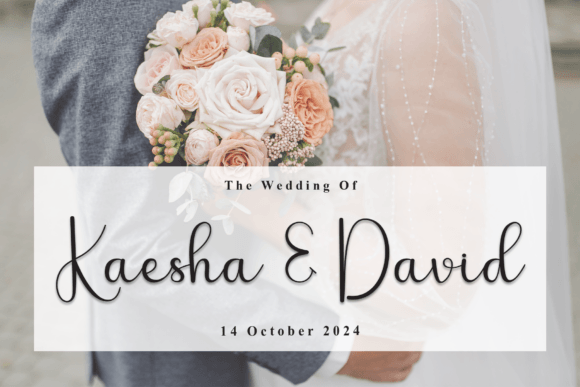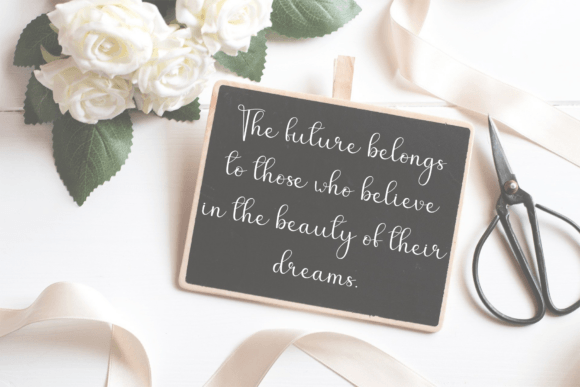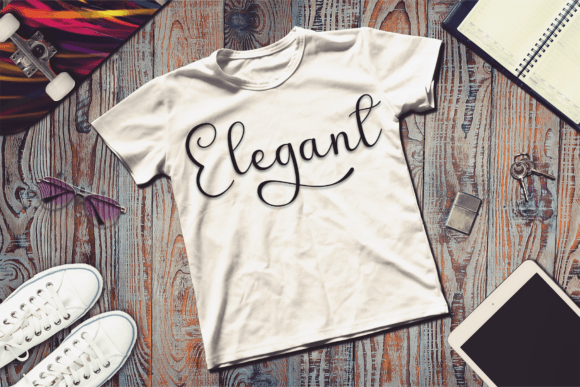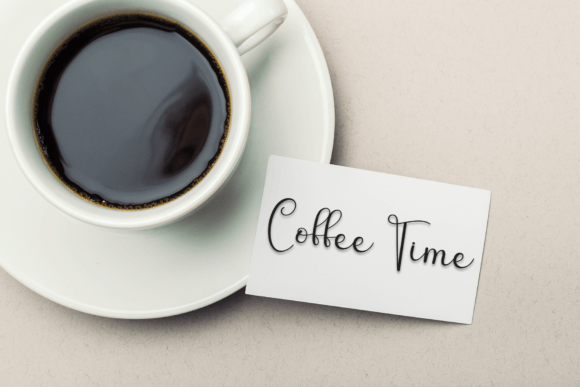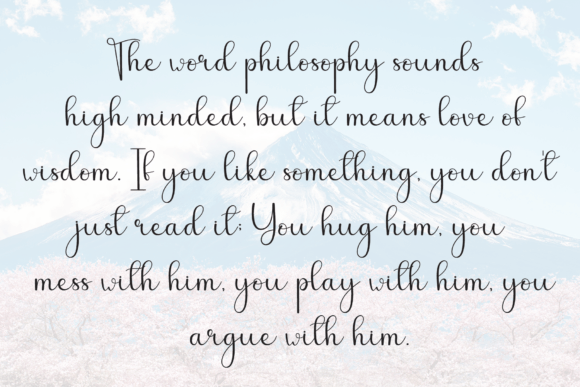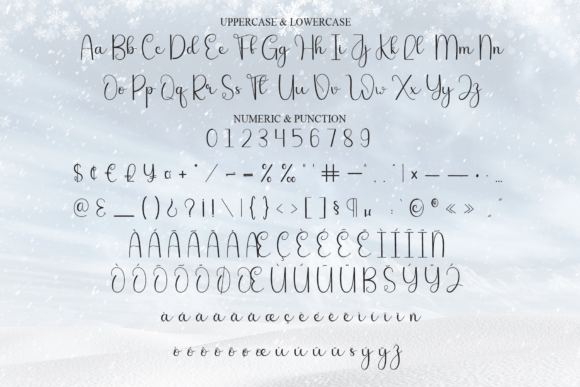
Frosty Winter Font: A Delightful Handwritten Display Font for Your Creative Projects
As the winter season approaches, designers and crafters are on the lookout for fonts that capture the essence of the frosty season. If you’re searching for a font that embodies the charm and playfulness of winter, look no further than the Frosty Winter Font. This delightful, handwritten display font is perfect for adding a touch of whimsy to your designs, making it an ideal choice for wedding invitations, greeting cards, and more.
The Charm of Frosty Winter Font
The Frosty Winter Font is a beautifully crafted, handwritten display font that exudes a sense of fun and playfulness. Its adorable and charming appeal makes it perfect for designers and crafters who want to create designs that are both visually appealing and engaging. Whether you’re designing wedding invitations, greeting cards, or other creative projects, this font is sure to add a sprinkle of magic to your work.
Wedding invitations and greeting cards are special occasions that deserve a font that’s both elegant and playful. The Frosty Winter Font is an excellent choice for these types of projects, as it adds a touch of whimsy and romance to your designs. Its handwritten nature gives your designs a personal and intimate feel, making them perfect for special occasions.
Key Features of Frosty Winter Font
- Handwritten display font: The Frosty Winter Font is a beautifully crafted, handwritten display font that’s perfect for adding a personal touch to your designs.
- Playful and adorable: This font is designed to be playful and adorable, making it perfect for designers and crafters who want to create designs that are both fun and engaging.
- Perfect for wedding invitations and greeting cards: The Frosty Winter Font is an excellent choice for wedding invitations and greeting cards, as it adds a touch of whimsy and romance to your designs.
Tips for Using Frosty Winter Font
Here are a few tips for using the Frosty Winter Font in your designs:
- Pair it with other fonts: The Frosty Winter Font pairs well with other fonts, so feel free to experiment with different combinations to find the perfect look for your design.
- Use it for headings and titles: This font is perfect for headings and titles, as it’s designed to be attention-grabbing and playful.
- Add some winter-themed graphics: To really make your designs pop, consider adding some winter-themed graphics, such as snowflakes or holly leaves.
In conclusion, the Frosty Winter Font is a delightful, handwritten display font that’s perfect for designers and crafters who want to add a touch of whimsy to their designs. Its playful and adorable nature makes it an excellent choice for wedding invitations, greeting cards, and other creative projects. With its ease of use and versatility, this font is sure to become a favorite in your design arsenal.